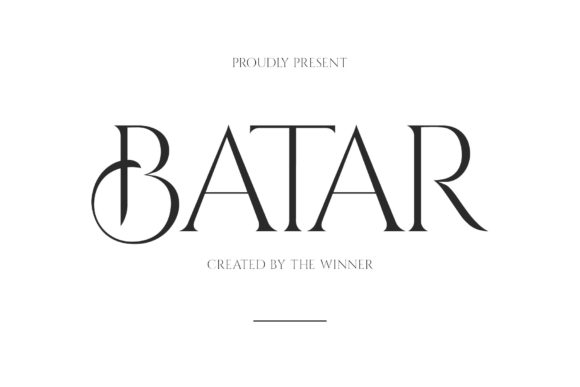
Introducing Batar – the font of choice for fashion-forward bloggers and designers seeking to make an unforgettable impact. This alluring serif font exudes timeless elegance, promising to elevate your creations to new heights.
With its exquisitely crafted curves and refined strokes, Batar effortlessly captures the essence of sophistication and style. Its versatility extends beyond fashion blogs, making it an exceptional option for a wide range of design projects, including:
* **Branding and Product Packaging:** Create logos, labels, and packaging that exude a touch of class and professionalism.
* **Invitations and Announcements:** Send invitations and announcements that convey the significance of the occasion.
* **Quotes and Typography:** Add a touch of inspiration to your quotes and typography with a font that speaks volumes.
* **T-Shirts and Apparel:** Design T-shirts and clothing lines that make a bold fashion statement.
* **Posters and Marketing Materials:** Craft posters and marketing materials that capture attention and leave a lasting impression.
Batar's ability to transform ordinary designs into eye-catching masterpieces is unparalleled. Its delicate balance between tradition and modernity makes it the perfect choice for those seeking to create a timeless and memorable brand identity.